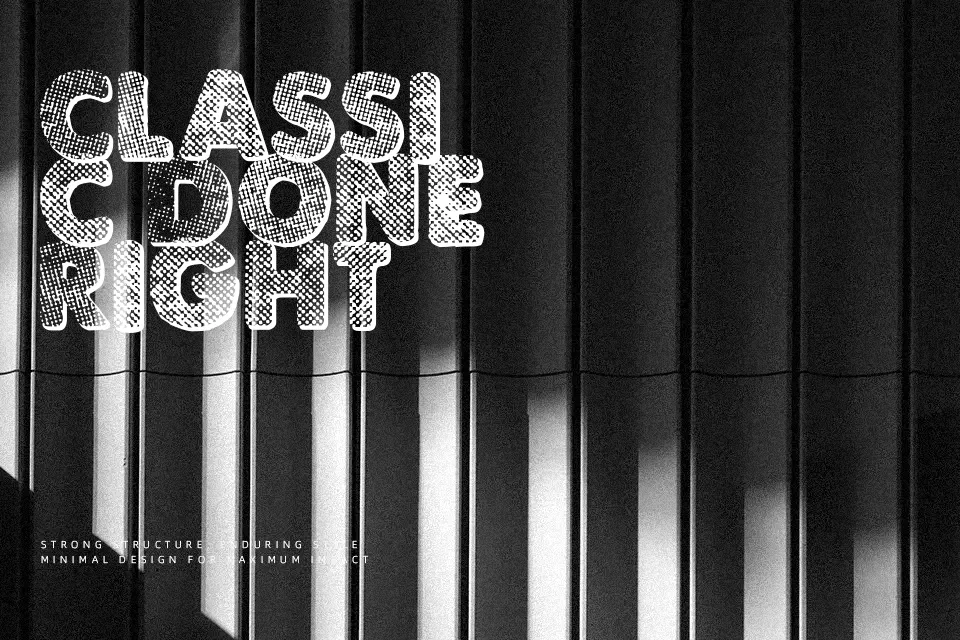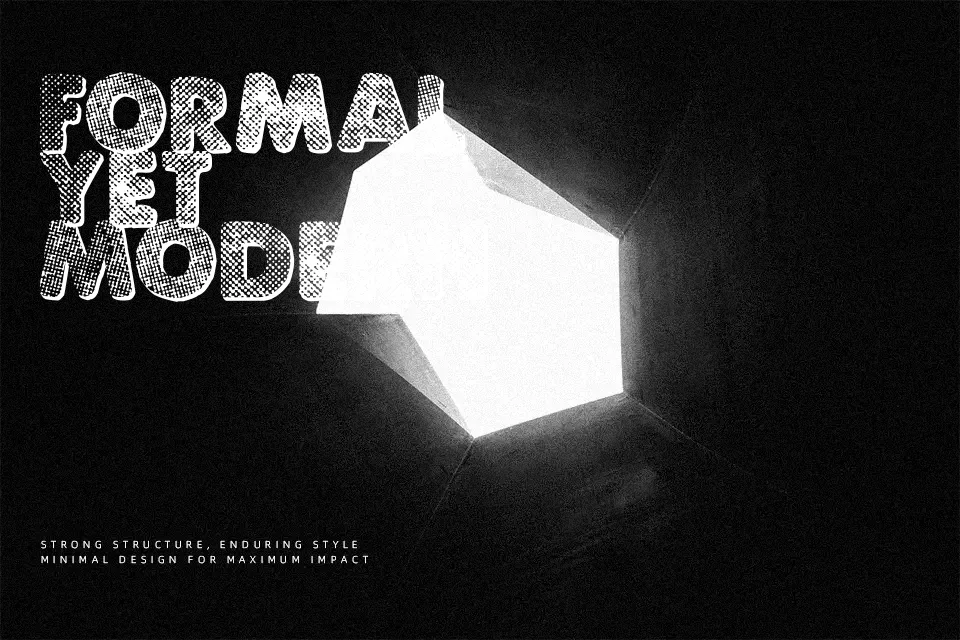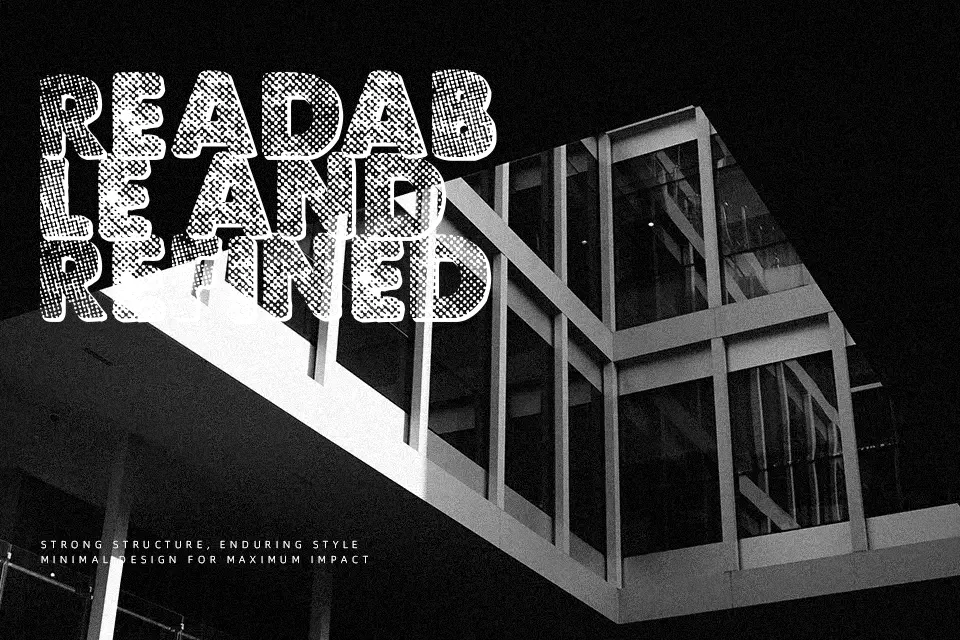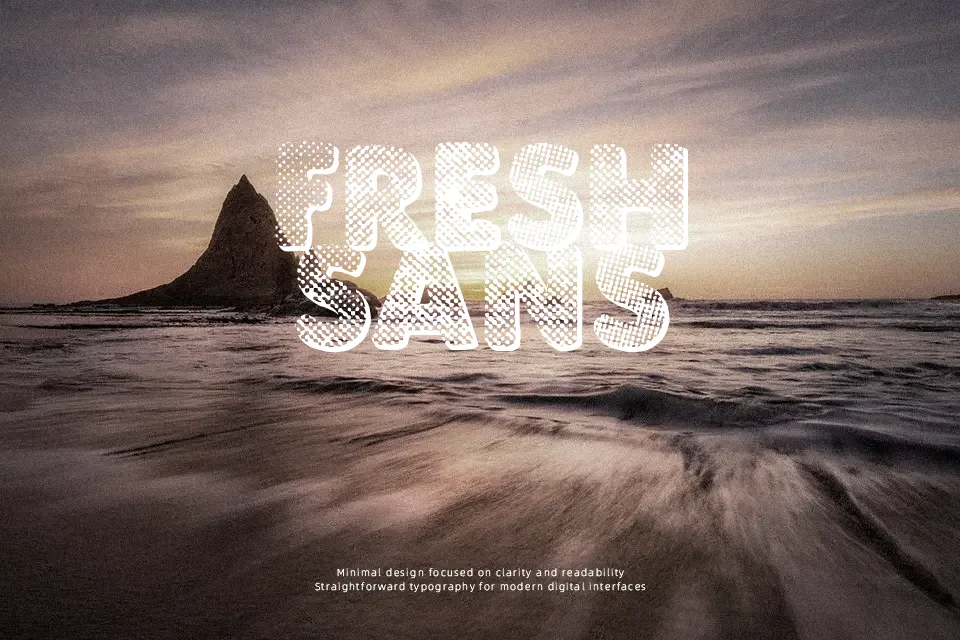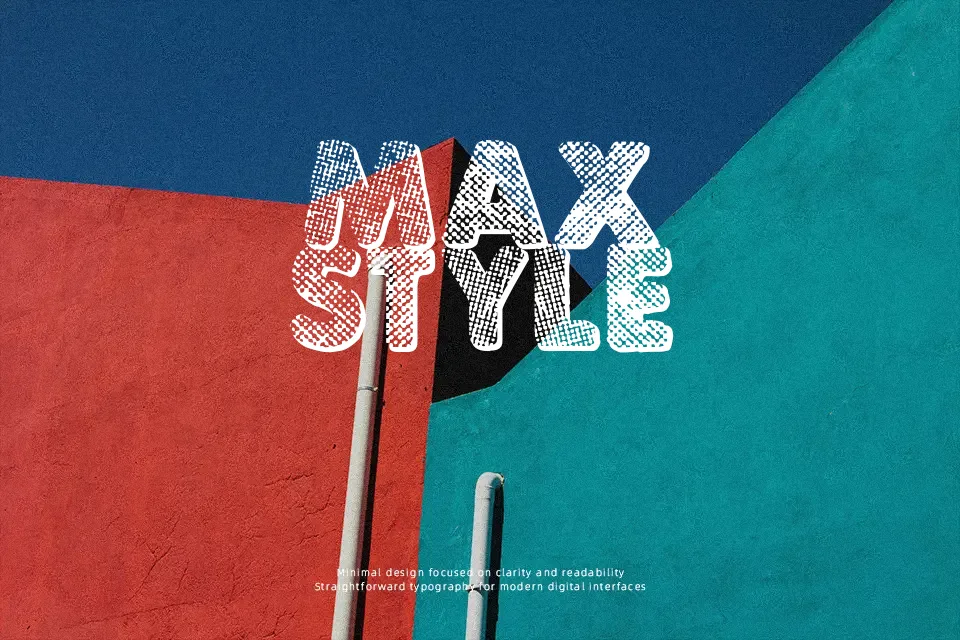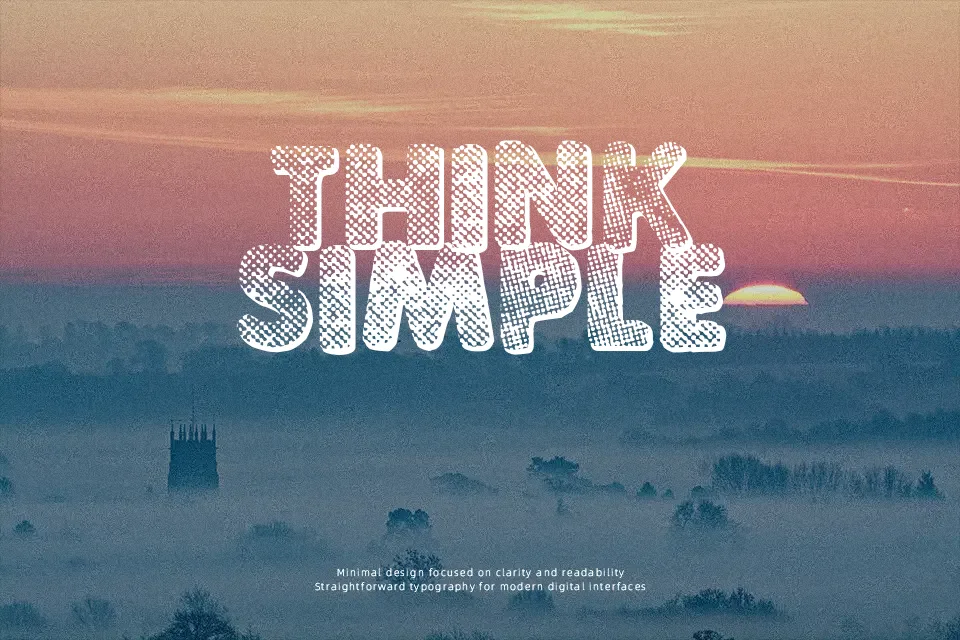
Punk Dots Font
Designed by imagex
Starting with a bold structural foundation, Punk Dots Font immediately stands out through its heavy erosion and distinct stippled texture. The letterforms display a raw, distressed appearance, combining solid strokes with scattered halftone patterns to create an authentic grunge aesthetic. The characters maintain strong visual weight, while the textured details add a rebellious energy. This display typeface performs exceptionally well in large-scale applications like concert posters, skateboard deck graphics, and edgy streetwear branding. The dense, irregular forms reduce comfort during extended reading, making the design less suitable for body copy. However, the consistent spacing helps maintain clarity in larger headlines, ensuring maximum impact where bold typography is needed most.
streetwear apparel graphics
urban lifestyle branding
skateboard deck designs
Perfect for branding, fashion, and headline, with a bold and decorative style.